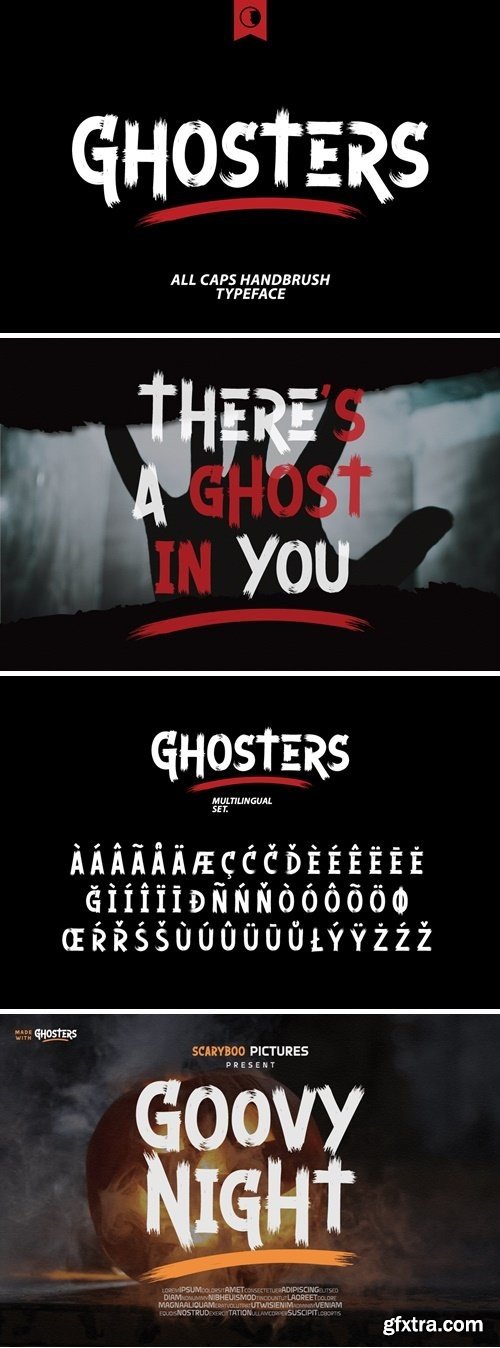
Ghosters is a modern hand brush font, a street brush font full of energy. With extra attention to quick strokes and sharp details. Each character is carefully brushed so that the texture becomes real. Ghosters is perfect for any design needs: branding, logos, handwritten quotes, product packaging, merchandise, blog design, modern advertising design, invitation, Art Quote, Home decor, Book/Cover Title, Invitation, special events, birthdays, custom mug, pillow, t-shirts, any brush lettering needs and more.